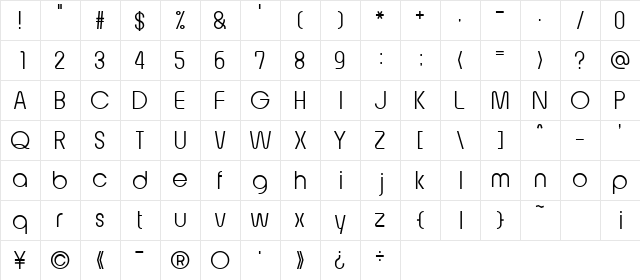
176MKSDAL Regular
Design Context for 176MKSDAL Typeface
176MKSDAL offers clean, dependable letterforms without strong stylistic allegiance, making it a practical choice for designers who need flexibility.